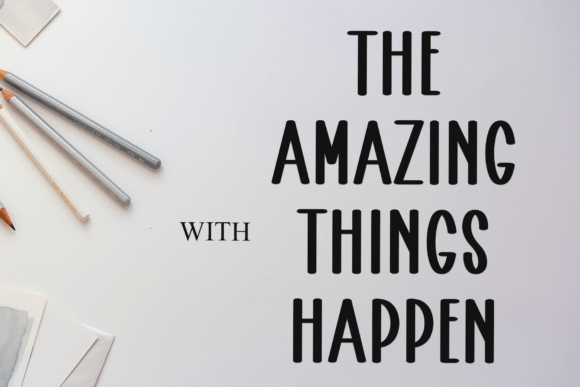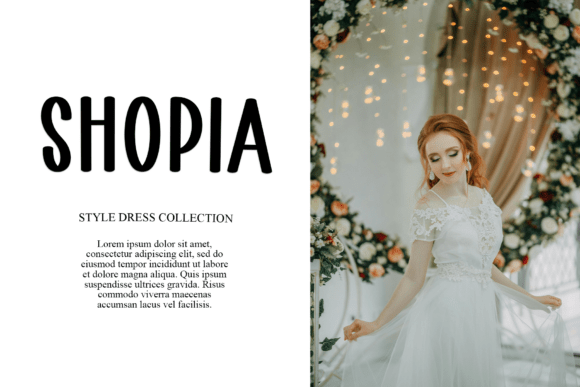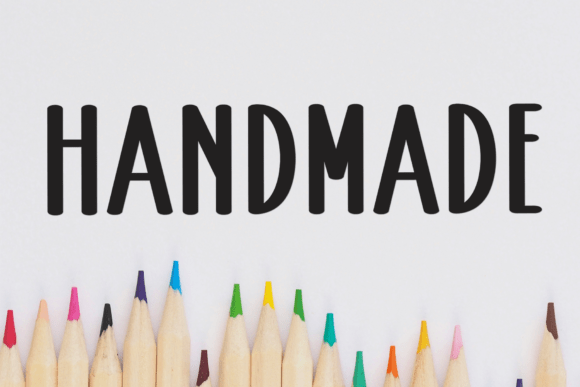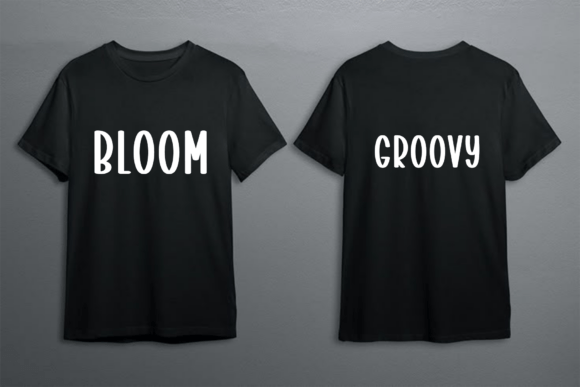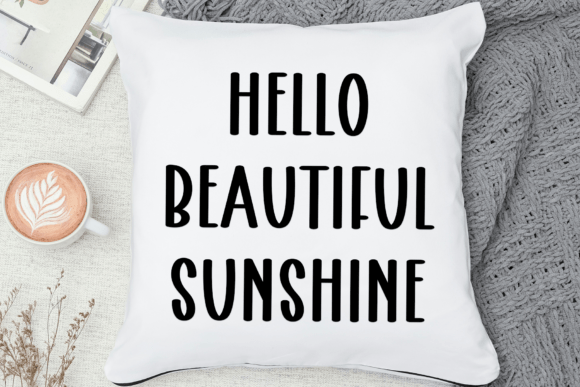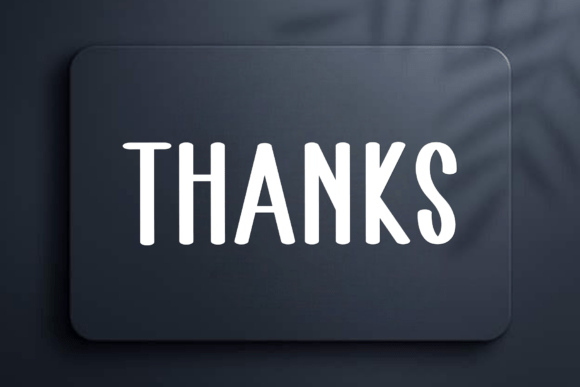
The Magic of Christmas Vocation Font: A Designer’s Delight
It’s that time of the year again – the season of joy, giving, and, of course, designing festive projects that capture the essence of Christmas. I still remember the year I was tasked with creating a Christmas card for a client’s family. I spent hours scouring the internet for the perfect font, only to end up with a design that felt, well, a bit Grinch-like. The font was either too ornate, too dull, or just plain overused. It wasn’t until I stumbled upon Christmas Vocation Font that I knew I’d found the one. ✨
An Honest Review of Christmas Vocation Font
- ✨ Clean lines and rounded edges that give it a friendly, approachable feel
- ✅ Perfectly balanced between simplicity and style, making it easy to pair with other fonts
- 🎉 Versatile and timeless – use it for Christmas projects or any winter-inspired designs
- 📚 Extensive OpenType features, including glyphs and stylistic alternates, to take your designs to the next level
While Christmas Vocation Font is a stunning addition to any design project, there are a few things to keep in mind: 🤔
- ⚠️ Limited availability of certain OpenType features in some platforms, like Microsoft Word
- ⚠️ May not be the best fit for very ornate or decorative designs, as it’s a relatively simple font
A Practical Guide to Using Christmas Vocation Font
The Story Behind Christmas Vocation Font
Christmas Vocation Font was designed with the holiday season in mind. The creator, a talented typographer, wanted to craft a font that captured the warmth and cheer of Christmas without being too over-the-top. Inspired by winter landscapes, cozy coffee shops, and festive decorations, Christmas Vocation Font was born. 🎄
Q: What makes Christmas Vocation Font so special?
A: Christmas Vocation Font is special because of its perfect balance of simplicity and style. It’s clean, modern, and friendly, making it ideal for a wide range of design projects.
Q: Can I use Christmas Vocation Font for non-Christmas designs?
A: Absolutely! While Christmas Vocation Font was designed with the holiday season in mind, its clean and modern design makes it suitable for a wide range of projects, from winter-inspired designs to everyday creative work.